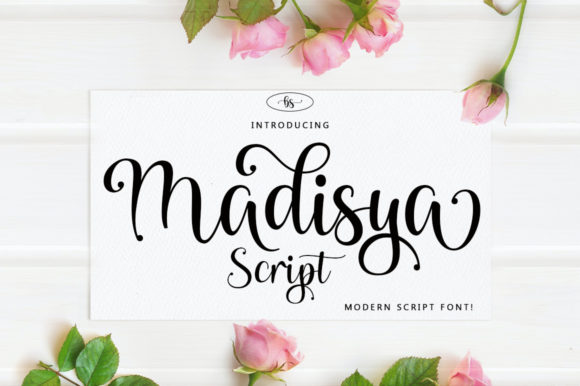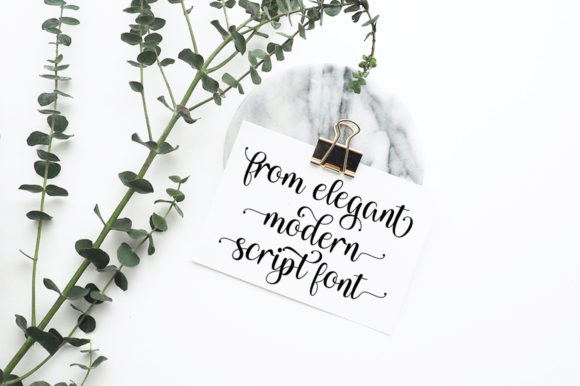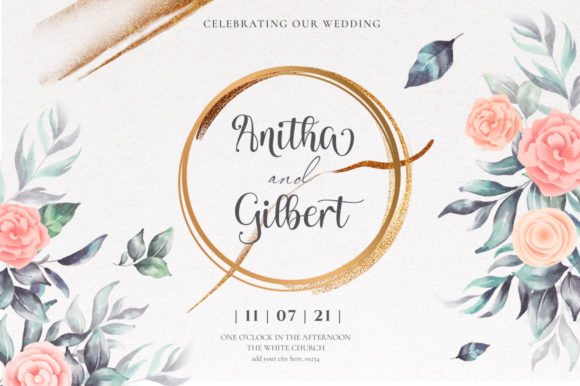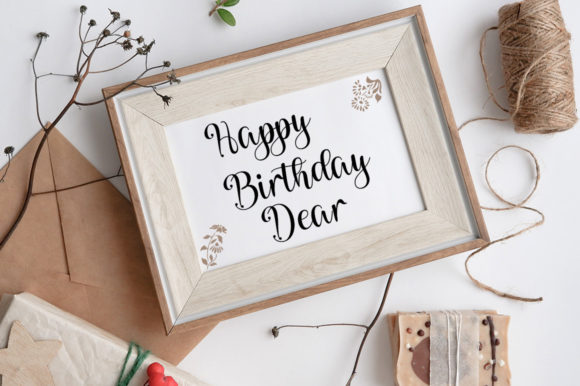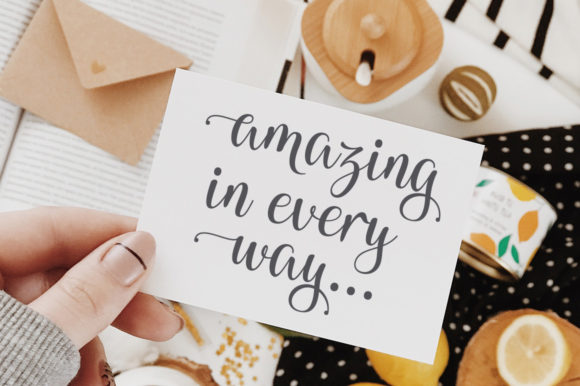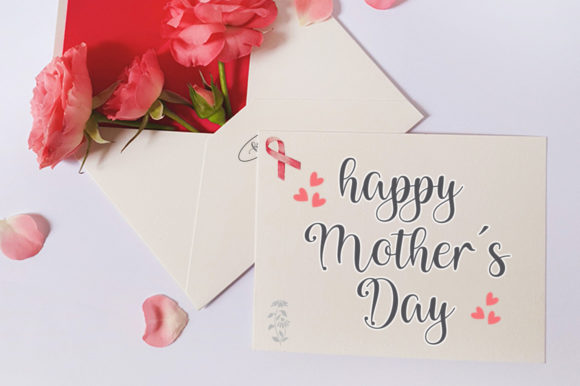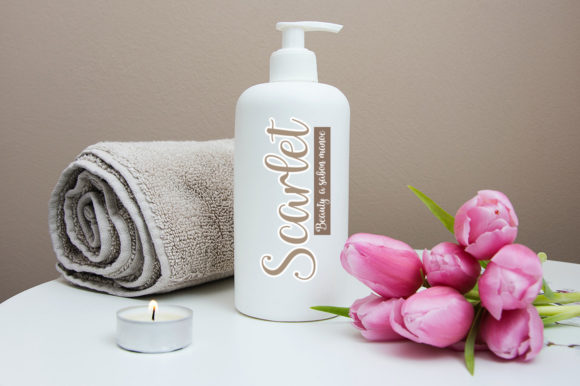
Madisya Script Font
About Madisya Script Font
Introducing “Madisya Script,” a stylish and dainty script font designed to add a touch of elegance to your projects. Whether you’re working on logos, branding projects, labels, or special events, Madisya Script is the perfect choice for adding a beautiful script taste to your designs.
With its graceful curves and flowing lines, Madisya Script brings a sense of sophistication to any project. Its versatility makes it suitable for a wide range of applications, from photography watermarks to branding materials, ensuring that your designs stand out with style and elegance.
Experience the beauty and versatility of Madisya Script and unlock its full potential with PUA encoding. This feature allows you to access all of the glyphs and swashes with ease, giving you the freedom to customize your designs and add unique touches as desired.